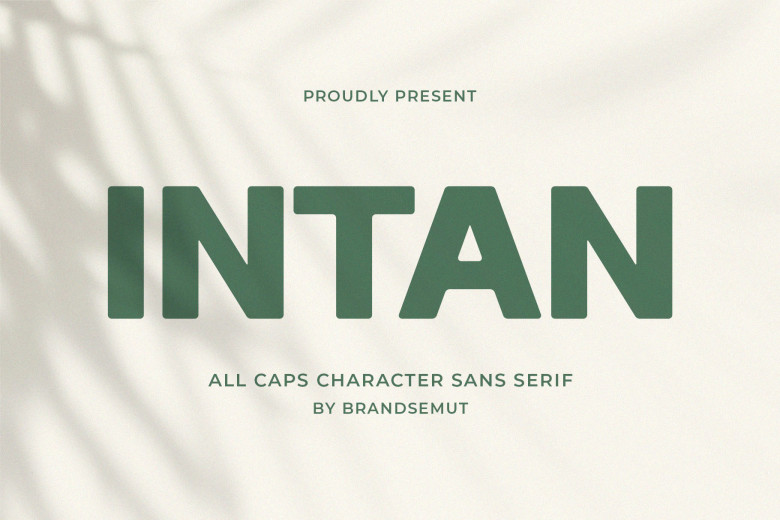
Intan Font
Intan Modern Sans-serif with modern and classy style typeface is best used as a display typeface that could be the uses for the headline, logotype, branding, magazine, product packaging, and much more design that need to be more modern style.. Intan come with Clean lines and smooth curves gives any project an extra touch of elegance.
Intan Sans Serif Font